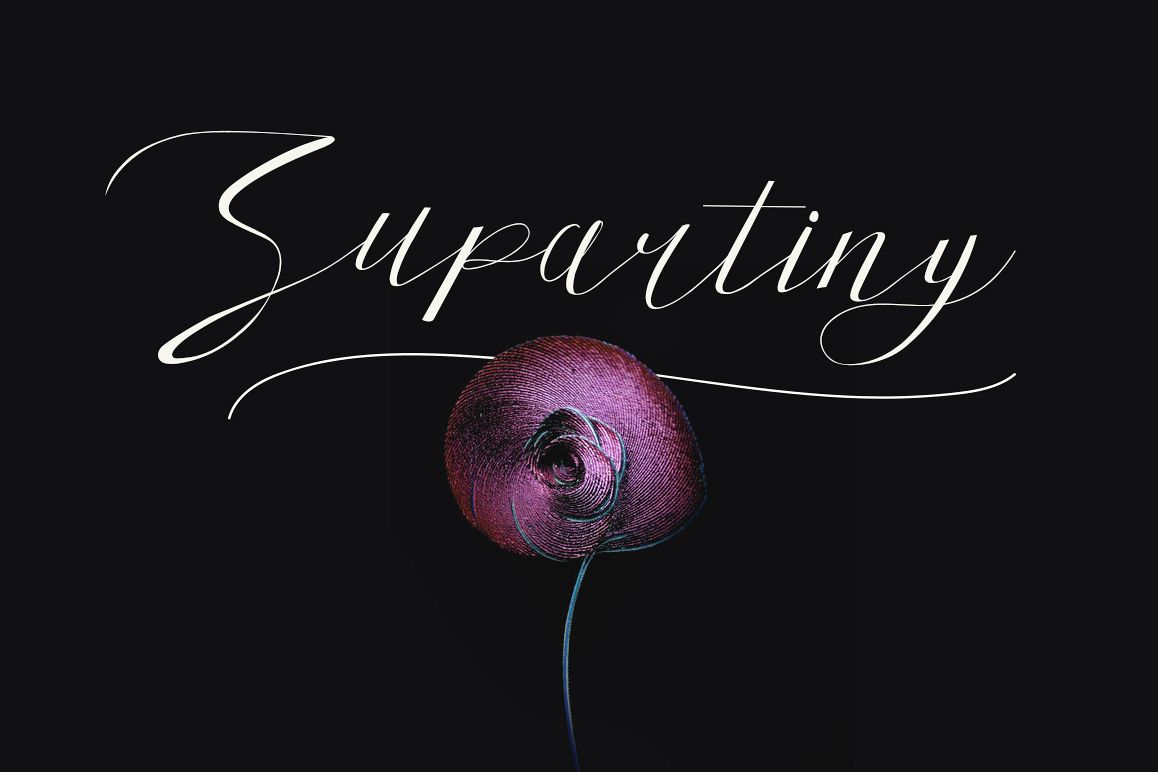
Supartiny Typeface
by Maulana Creative
Give your designs an authentic handcrafted feel. "Supartiny Typeface" is perfectly suited to stationery, logos, wedding and much more.Included: